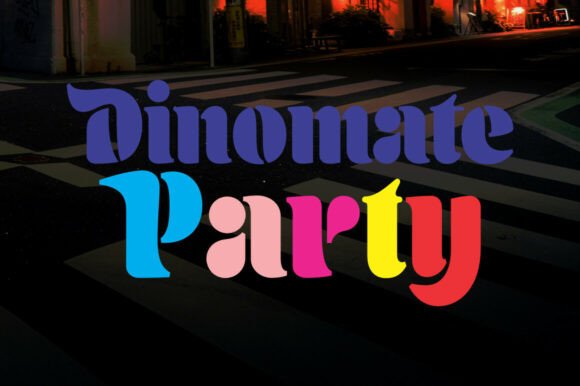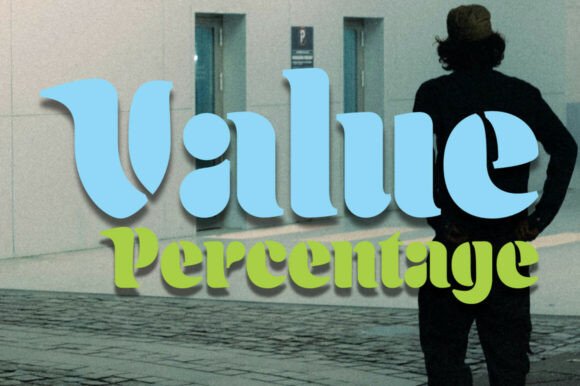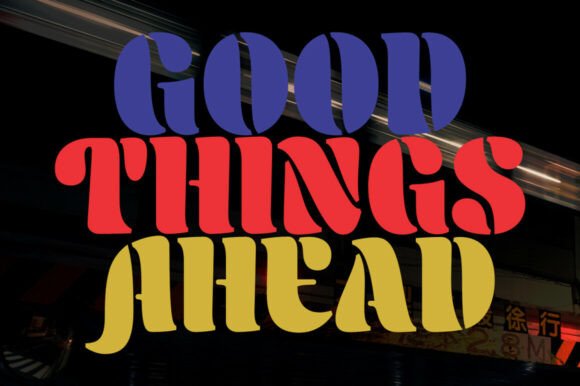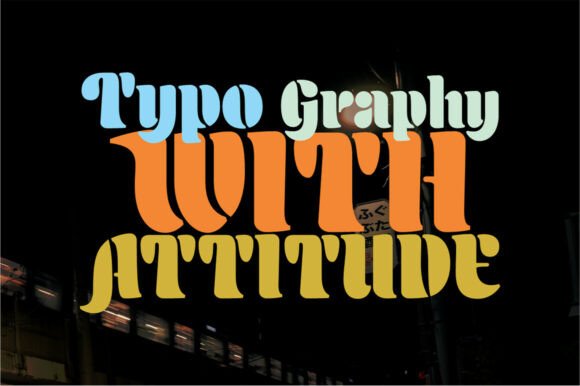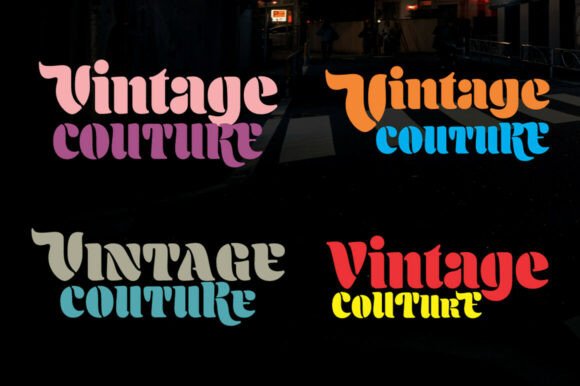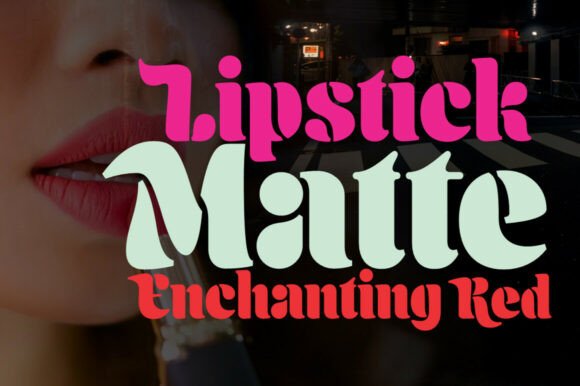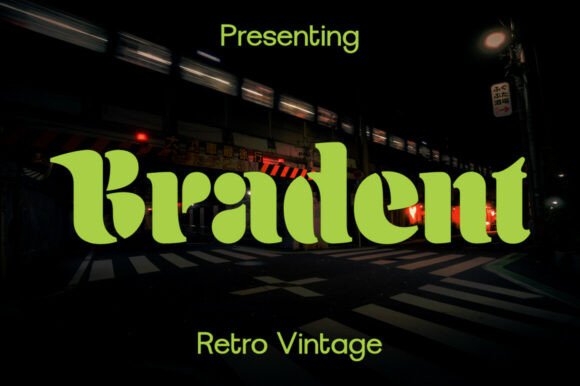
Introducing Bradent: The Ultimate Vintage Motorcycle-Themed Font Collection
Are you a designer or crafter looking to add a touch of nostalgia and strength to your designs? Look no further than the Bradent font collection, a dynamic set of vintage motorcycle-themed fonts designed to bring the spirit of the workshop to your creative projects. This comprehensive font collection combines the best of stencil-style serif and sans-serif fonts, offering three unique styles to choose from: regular, rough, and stamped.
The Inspiration Behind Bradent
The Bradent font collection is inspired by the classic look of vintage motorcycles, evoking a sense of adventure, strength, and craftsmanship. The fonts are designed to capture the essence of vintage motorcycle culture, with detailed stencil and stamped visuals that add a touch of authenticity to your designs. Whether you’re working on posters, logos, apparel, or other creative projects, Bradent provides the ideal typographic foundation to give your designs a classic, rustic look.
Key Features of the Bradent Font Collection
- Three Unique Styles: The Bradent font collection includes three unique styles to choose from: regular, rough, and stamped. Each style offers a distinct look and feel, allowing you to experiment with different designs and applications.
- Stencil-Style Serif and Sans-Serif Fonts: The Bradent font collection combines the best of stencil-style serif and sans-serif fonts, offering a versatile range of typographic options for your designs.
- Authentic Vintage Look: The Bradent font collection is designed to capture the essence of vintage motorcycle culture, with a focus on authenticity and attention to detail.
Tips for Using the Bradent Font Collection
When using vintage fonts like Bradent, it’s essential to keep in mind that their readability is typically lower than modern fonts. Here are some tips for getting the most out of the Bradent font collection:
- Use for Headings and Titles: Vintage fonts like Bradent are perfect for headings and titles, where you want to make a bold statement and add a touch of nostalgia to your designs.
- Avoid Long Paragraphs: While the Bradent font collection is perfect for short bursts of text, it’s not ideal for long paragraphs. Use a modern font for body text and save the vintage font for headings and titles.
- Experiment with Different Styles: The Bradent font collection includes three unique styles to choose from. Experiment with different styles and combinations to find the perfect look for your designs.
Design Applications for the Bradent Font Collection
The Bradent font collection is perfect for a wide range of design applications, including:
- Posters and Flyers: Add a touch of nostalgia and strength to your posters and flyers with the Bradent font collection.
- Logos and Branding: Use the Bradent font collection to create a unique and memorable logo for your business or brand.
- Apparel and Merchandise: The Bradent font collection is perfect for designing t-shirts, hoodies, and other merchandise that requires a bold and eye-catching font.
The Bradent font collection is a comprehensive set of vintage motorcycle-themed fonts designed to bring the spirit of the workshop to your designs. With three unique styles to choose from, a focus on authenticity, and ease of use, Bradent is the perfect font collection for designers and crafters looking to add a touch of nostalgia and strength to their designs. So why wait? Download the Bradent font collection today and let your creativity run wild!